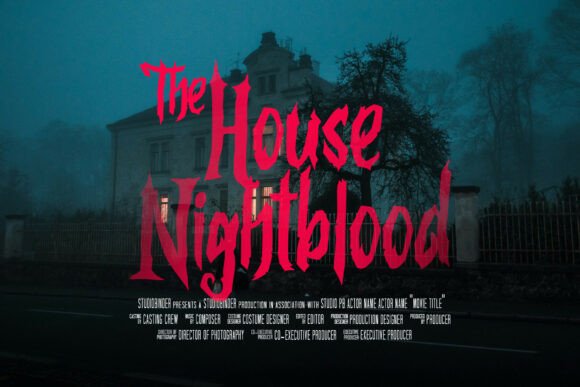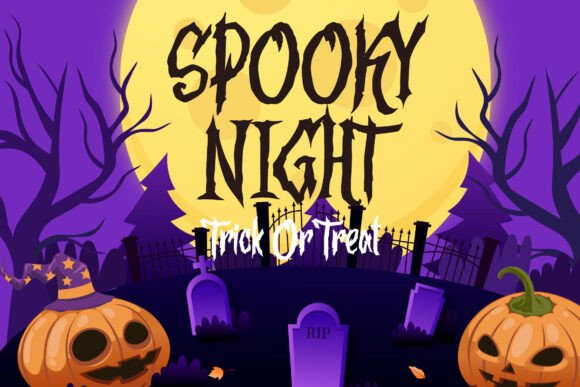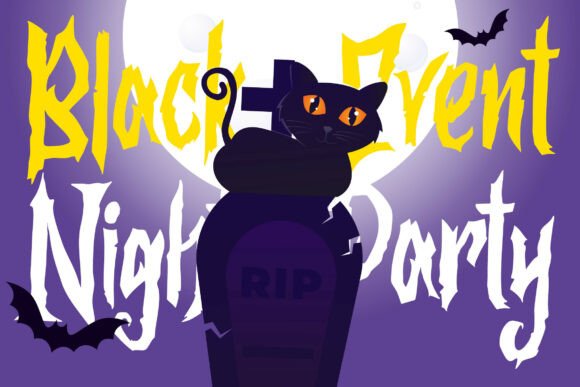
The Death Curse Font: A Haunting Addition to Your Design Arsenal
As a designer, I’ve had my fair share of late nights scouring the internet for the perfect font to bring a client’s vision to life. One project that still haunts me (pun intended) was a Halloween-themed poster for a local haunted house. I wanted a font that would evoke the eerie, mystical feel of a witch’s curse, but everything I found seemed to fall flat. That was until I stumbled upon the Death Curse font.
This twisted, horror-themed font has been a game-changer for my design work, and I’m excited to share its dark magic with you. With its root-like details and whispering old witch vibes, Death Curse is perfect for a variety of spooky and mystical projects.
What Makes Death Curse Special?
The Death Curse font is a masterclass in creepy, mystical design. Here are a few things that make it stand out:
- ✨ **Twisted, root-like details**: Each letter feels carved from the dark, mysterious forests of legend.
- ✅ **Three versatile styles**: Regular, Outline, and Extrude give you endless options for layering, mixing, and experimenting with haunting variations.
- 🔍 **PUA-encoded for easy access**: All glyphs, swashes, and alternate characters are at your fingertips, making customization a breeze.
- 💫 The font’s unique, hand-crafted feel is perfect for adding a touch of mysticism to any design.
- 👻 The three styles offer a ton of flexibility and creative freedom.
- 💻 The PUA encoding makes it easy to access and customize the font’s many glyphs and alternates.
- 🤔 Some of the more intricate details can get a bit lost at smaller font sizes.
- ⚠️ The font’s distressed look might not be the best fit for very formal or corporate designs.
The Backstory Behind Death Curse
Legend has it that the Death Curse font was inspired by the dark, mystical forests of Eastern Europe, where old witches were said to whisper curses to those who dared to cross them. The font’s creator, a mysterious designer known only by their pseudonym, “The Cursed Typewriter,” was said to have been obsessed with the supernatural and the occult. Their goal was to create a font that would evoke the fear and unease of being lost in those haunted woods.
Q: What kind of projects is Death Curse best suited for?
A: Death Curse is perfect for Halloween-themed projects, occult or mystical designs, haunted house promotions, and dark fantasy book covers.